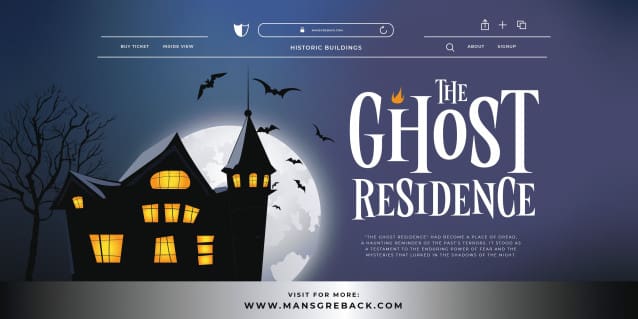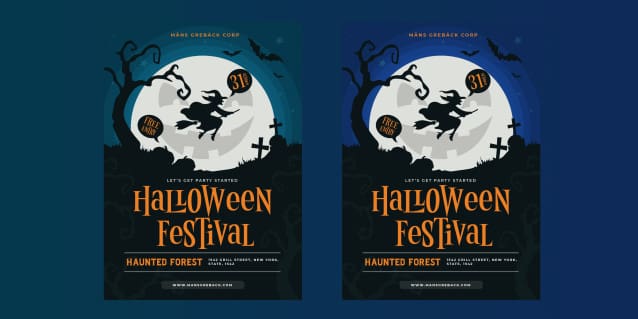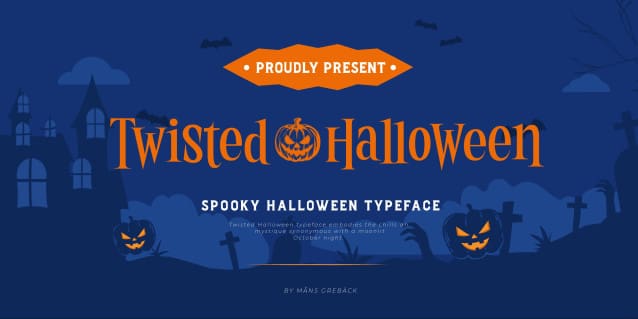
Twisted Halloween Font
Twisted Halloween Font, typeface embodies the chills and mystique synonymous with a moonlit October night.
Out of the norms, its characters undulate freely, rejecting a fixed baseline, giving each word a personality tinged with a blend of spooky and retro allure.
Use asterisk * to make a Halloween cat, or multiple asterisks to make different symbols like pumpkins, demons, skulls.
Example: Witch*Craft & Black******Magic